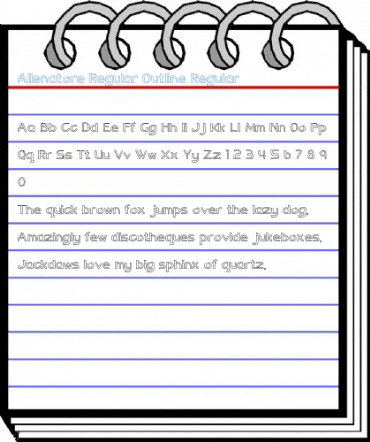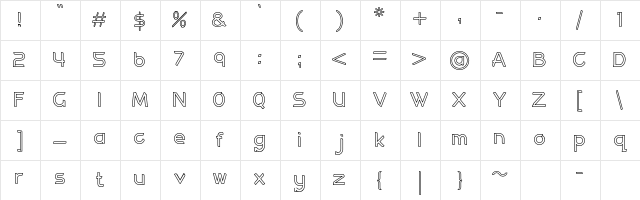
Allenatore Regular Outline Regular
Designer: Abo Daniel 2018
Design Context for Allenatore Regular Outline
Allenatore Regular Outline is built around its visual character rather than neutral utility - its distinctive forms are designed to make an impression at display sizes.
Font Pairing: Pair with a clean neutral sans-serif for body copy to let Allenatore Regular Outline's character lead without overwhelming the composition.
Pro Tip: Use Allenatore Regular Outline exclusively at display sizes - it was designed to be seen, not read at length. Let a neutral companion handle body copy.